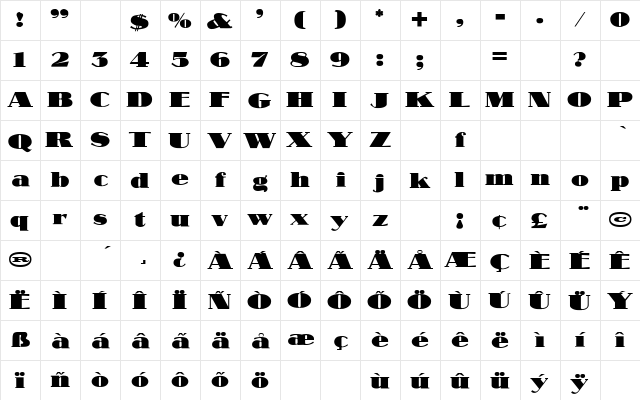
Nubian Regular
Design Context for Nubian Typeface
Nubian is a composed and adaptable typeface that performs quietly and consistently across a wide range of design contexts.